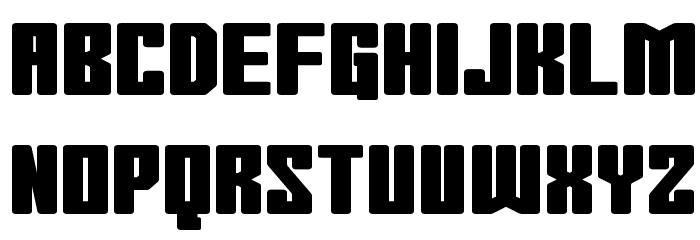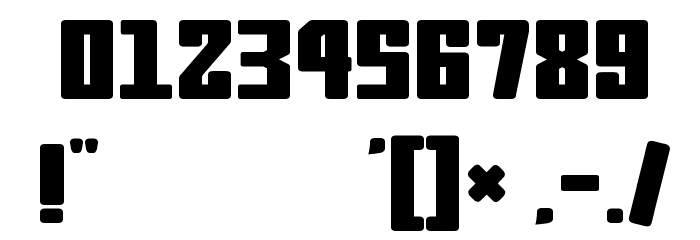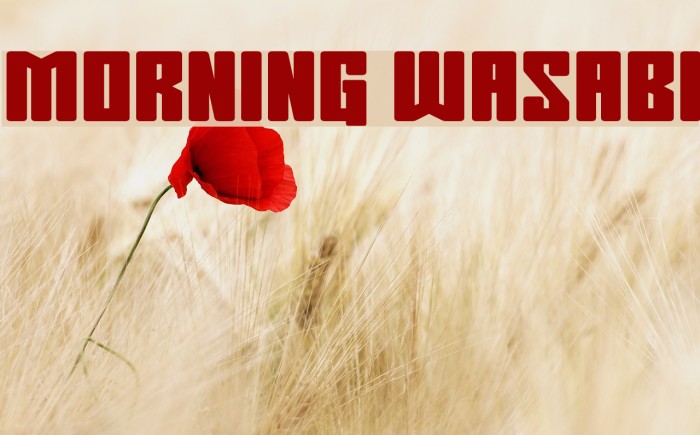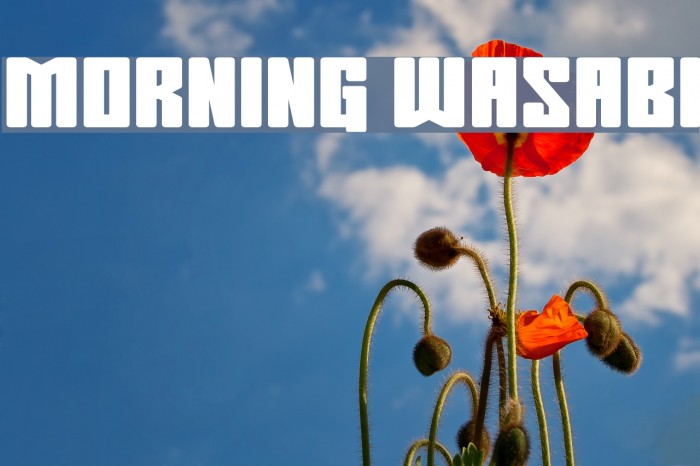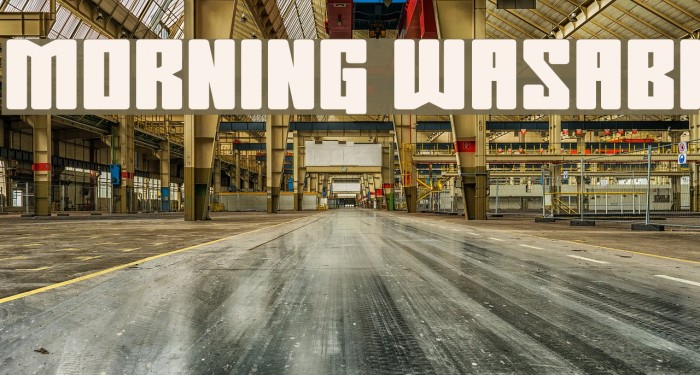
Morning Wasabi Font
This font features bold, blocky characters with a strong presence, making it ideal for impactful headlines and attention-grabbing designs. The uppercase letters are uniform in height, with a geometric style that emphasizes straight lines and right angles. The numbers and special characters maintain the same boldness and geometric consistency, ensuring a cohesive look across all text. The font's design is reminiscent of retro or vintage styles, yet it carries a modern edge due to its clean lines and solid structure.
Bold, geometric font with a retro-modern style.
- Proposed Projects: Ideal for posters, logos, branding materials, and any design requiring a strong visual impact.